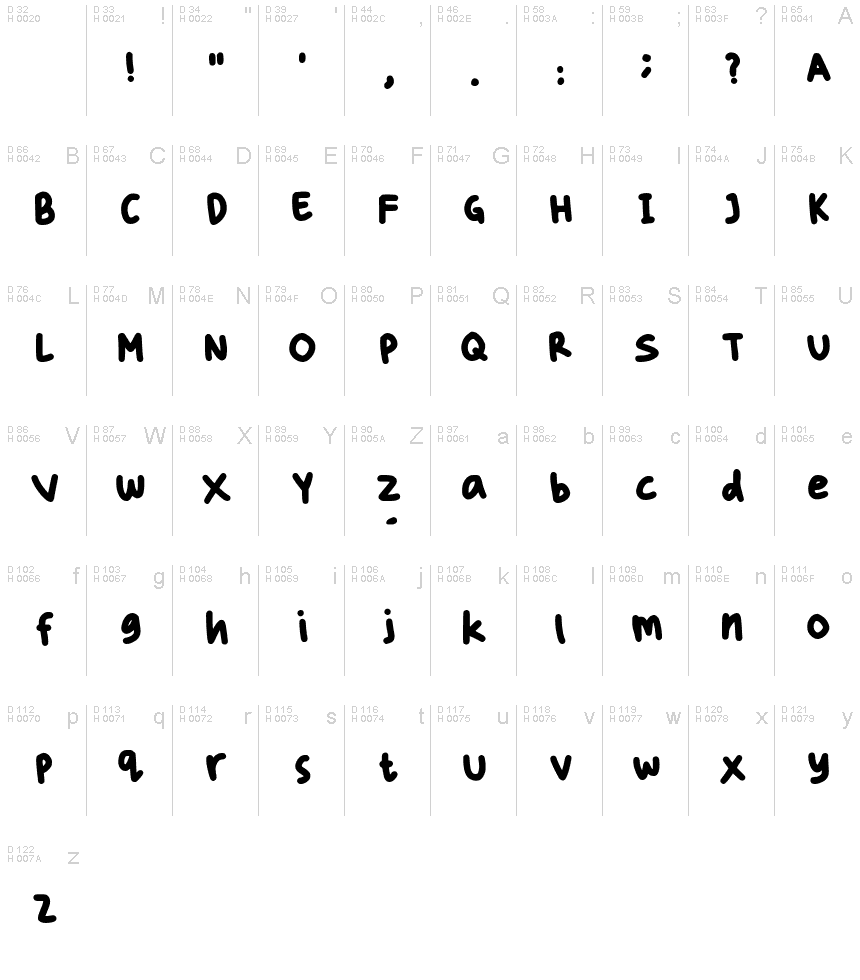
Malibu Nights Regular
Malibu Nights, a stunning handwritten font created by Sahara Varisia, brings a bold and expressive touch to any project. The unique style of this font is perfect for designing logos, branding materials, wedding invitations, and social media graphics. Its bold weight makes it stand out on any design work with its distinctive strokes and curves that flow smoothly across the page. This versatile typeface is suitable for various projects ranging from edgy fashion designs to elegant home decor products. Elevate your creative projects today with Malibu Nights!